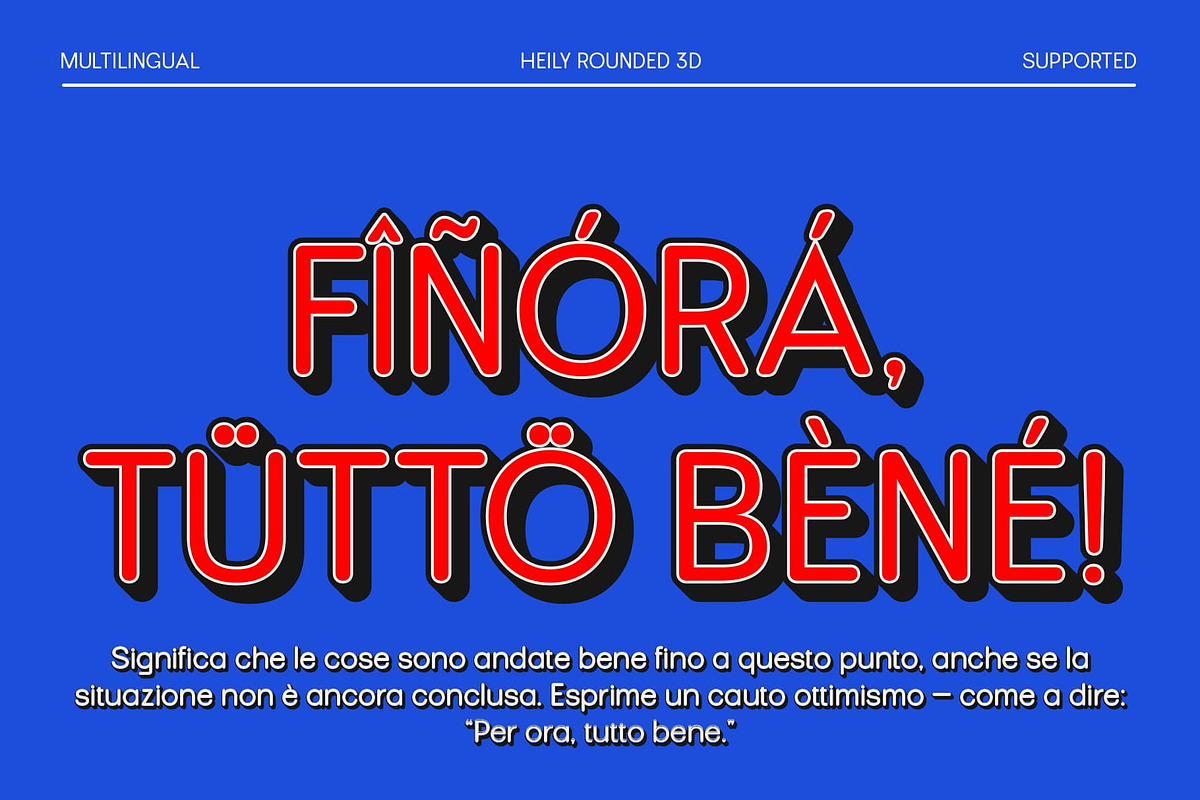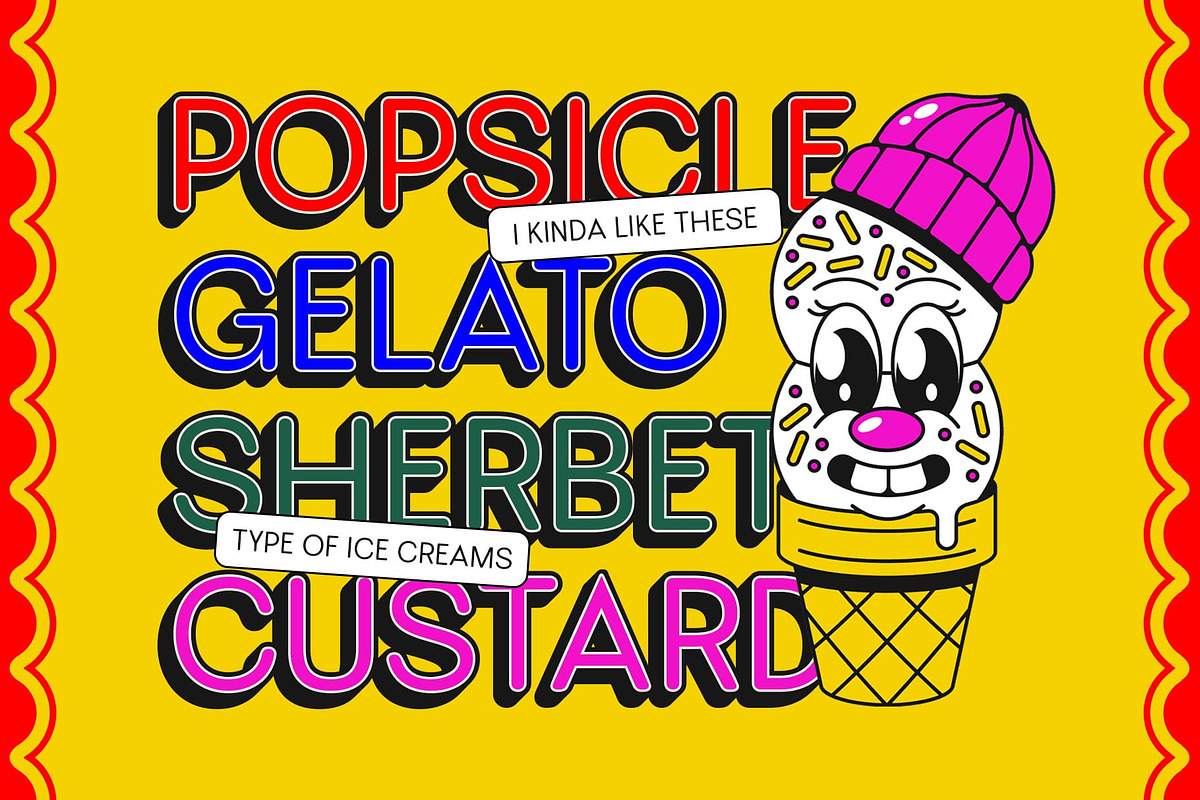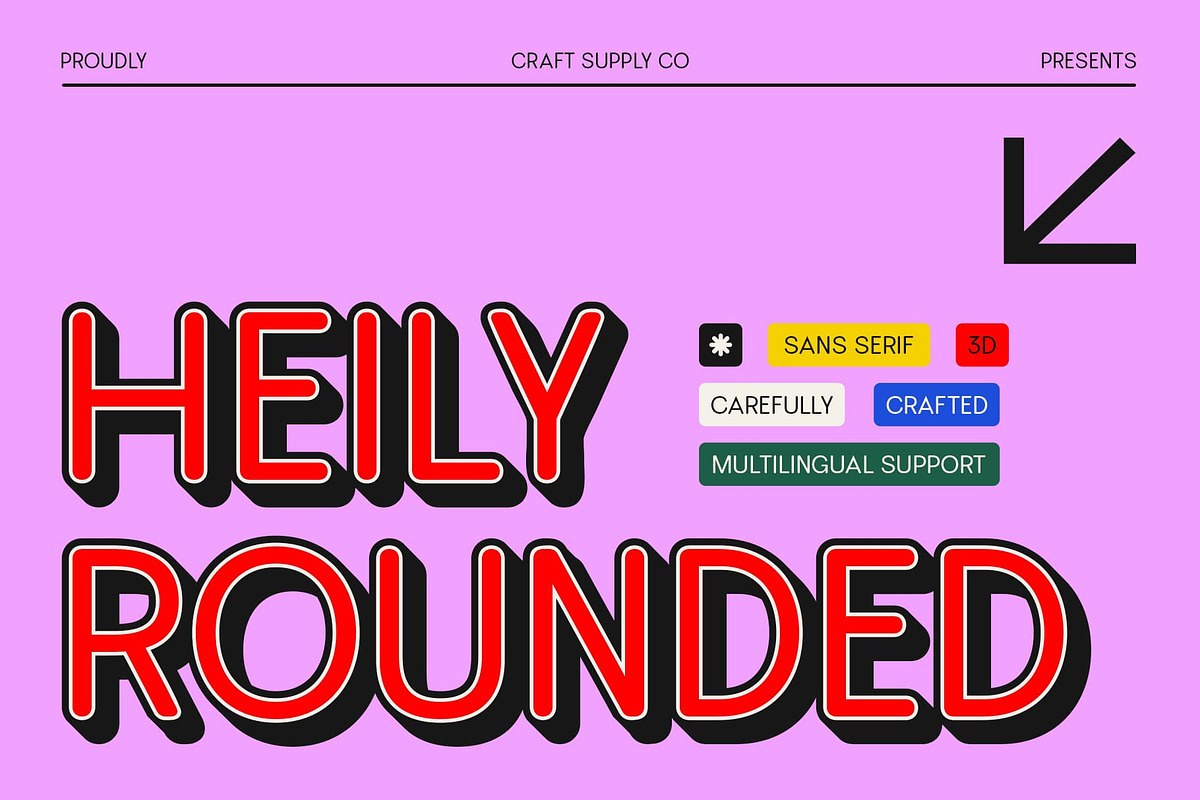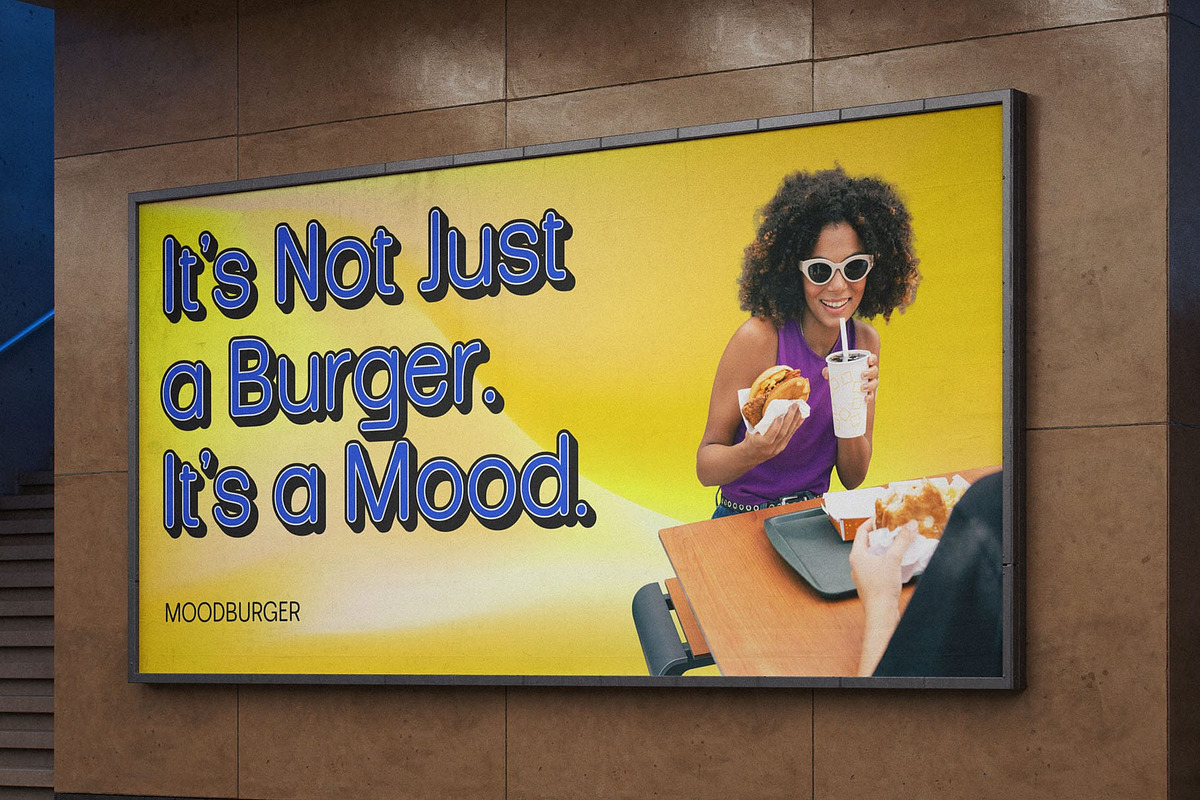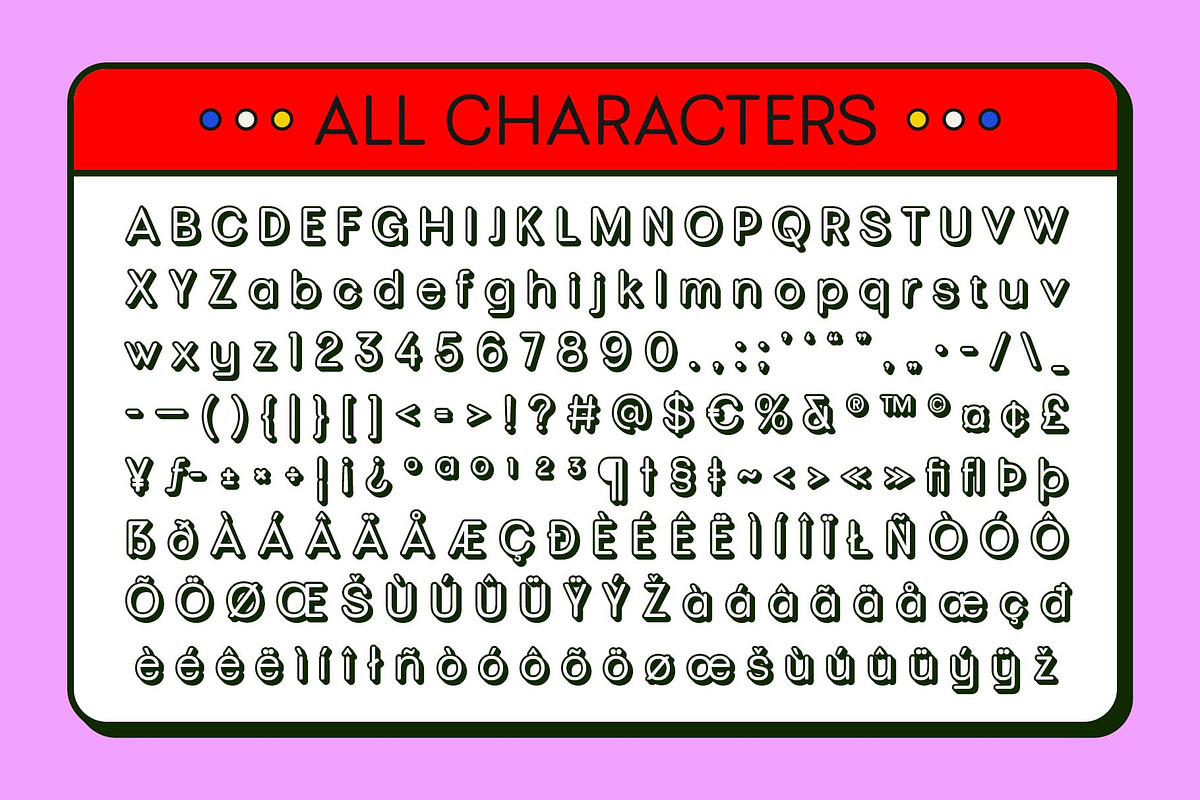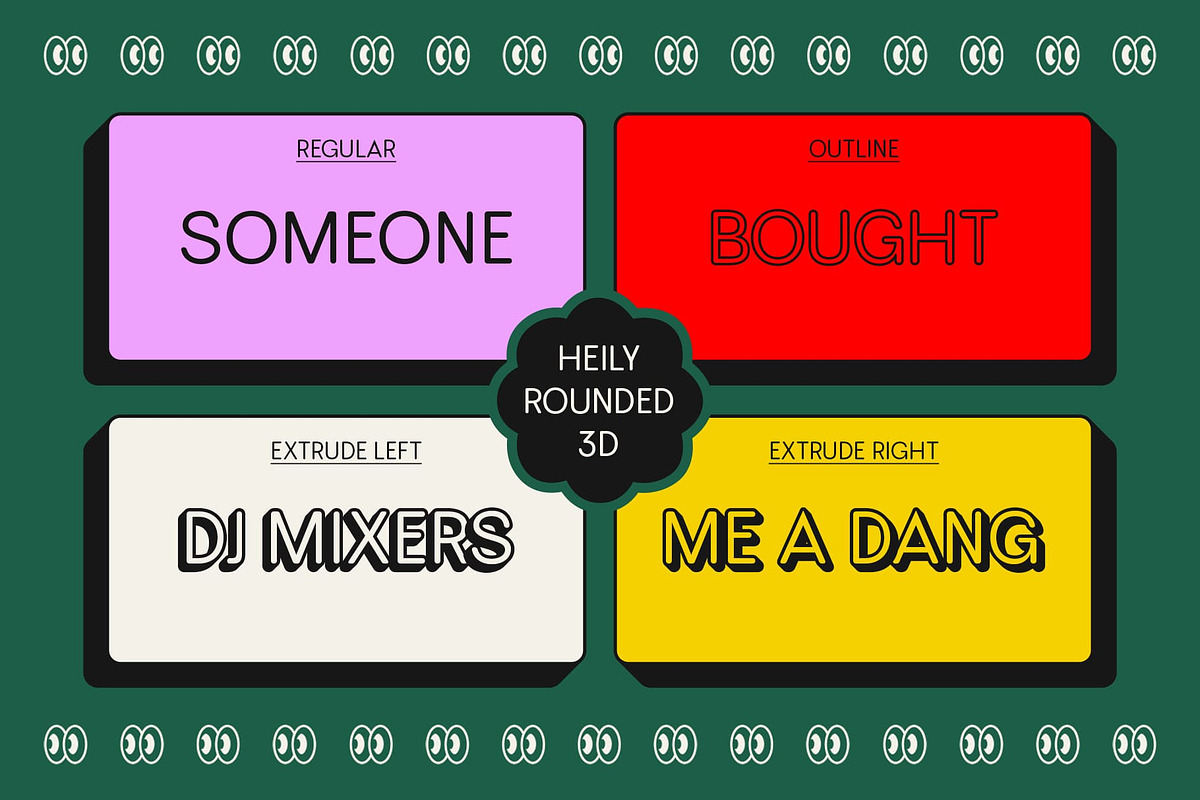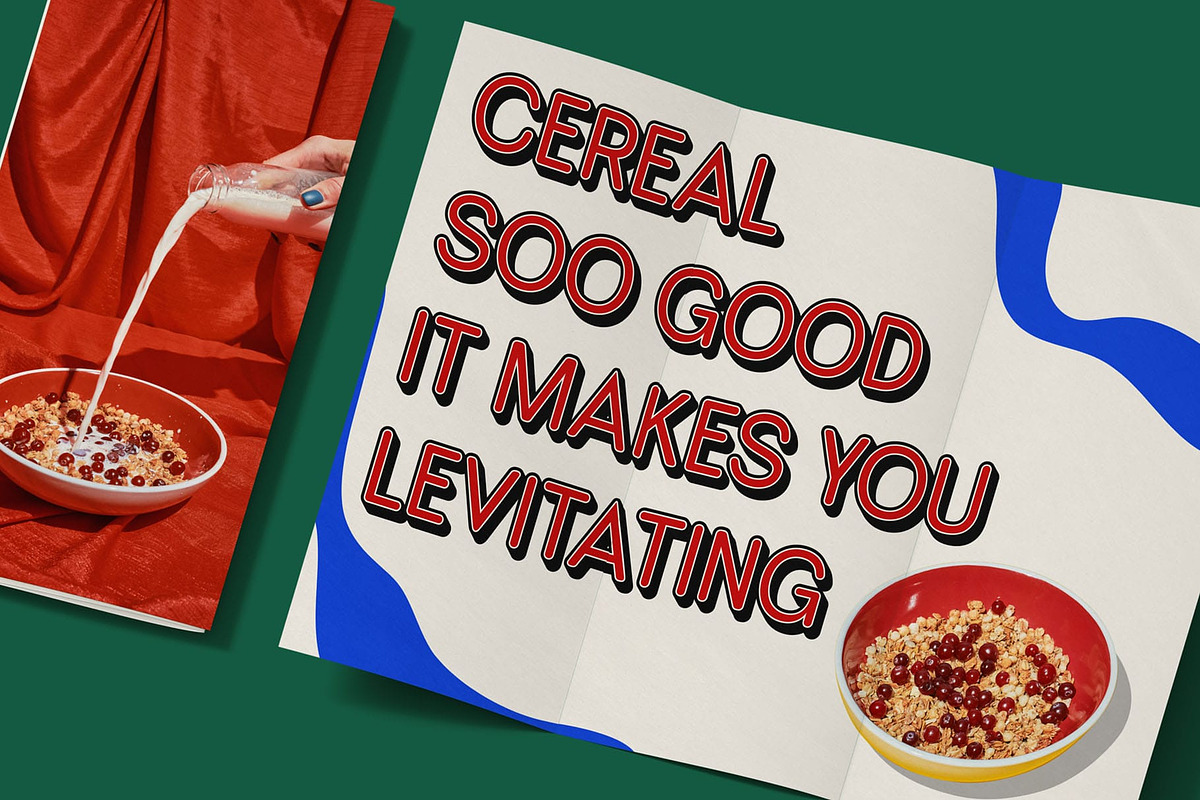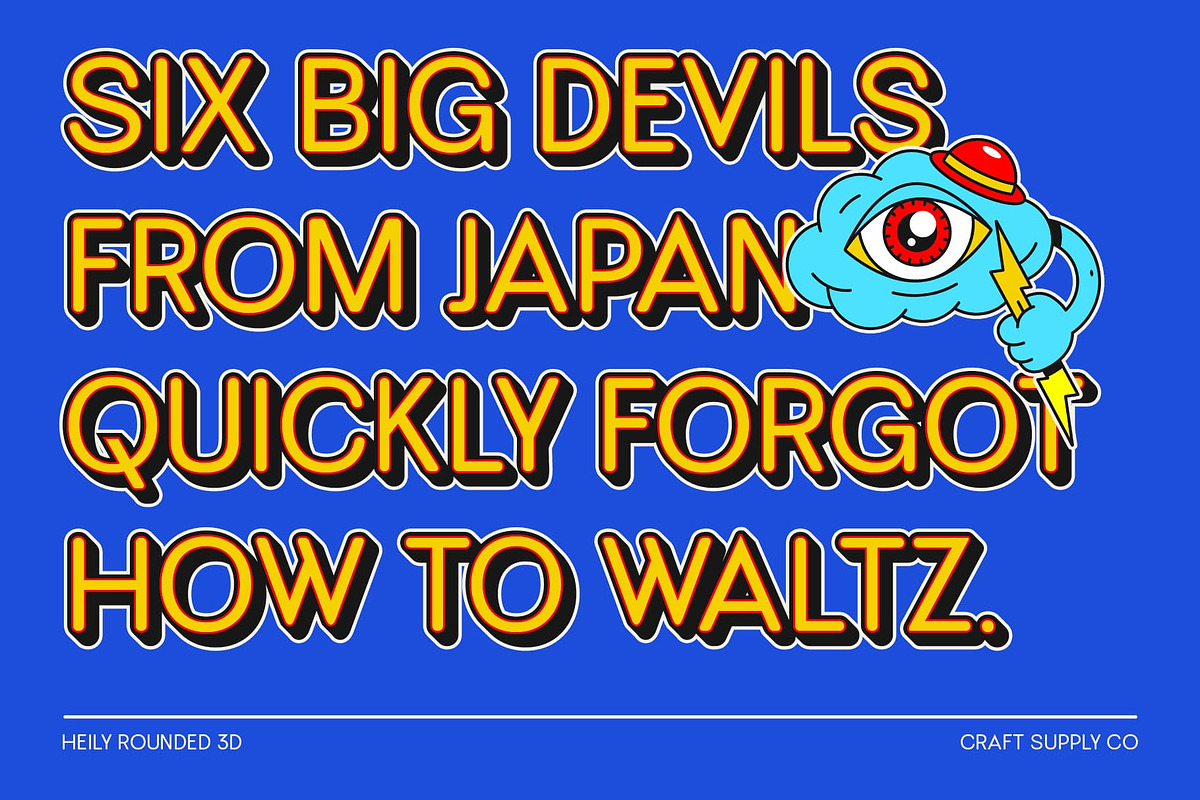
Heily Rounded 3D
Heily Rounded 3D: Soft Geometry in Bold Dimension
Modern Sans-Serif with Rounded Corners and 3D Effect** Heily Rounded 3D is a modern sans-serif font that brings together geometric structure, grotesque balance, and gentle rounded corners. Its clean and minimalist form exudes clarity, while the subtle curvature softens the overall tone—striking the perfect harmony between professionalism and approachability. Enhanced with a bold 3D effect, it adds dynamic depth to any composition.
Geometric and Grotesque Fusion Rooted in a grotesque style with strong geometric influence, Heily Rounded 3D offers versatile forms that adapt easily across design needs. The structured letterforms ensure legibility and consistency, while the rounded details introduce a friendly, modern aesthetic suitable for both digital and print applications.
Rounded Corners for a Contemporary Feel The smooth, rounded edges give the typeface a refined and approachable personality. This detail makes it ideal for tech branding, editorial layouts, and creative visuals where a balance of sharp professionalism and soft expression is essential.
3D Effect for Depth and Visual Impact Its integrated 3D effect delivers a striking sense of depth and motion, transforming simple layouts into standout visuals. Perfect for projects that aim to be bold and innovative, this added dimension elevates headlines, logos, and branding to a futuristic and engaging level.
- Heily Rounded Regular
- Heily Rounded Outline
- Heily Rounded Extrude Right
- Heily Rounded Extrude Left